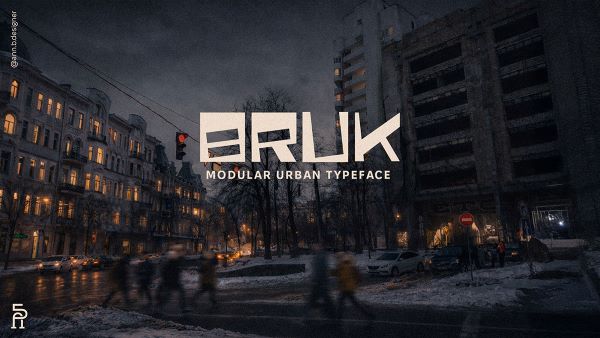
BRUK Font
BRUK by Anna Biliaieva is a modular urban font that approaches letterform design as architecture. Each character is conceived as an architectural block — a module that functions within a strict system, yet admits the kind of subtle imperfections that give cities their texture and life. The result is a typeface with genuine conceptual depth Free for personal and commercial use.
BRUK is a rigorous modular urban typeface in our free font collection, designed by Anna Biliaieva — a type designer and graphic artist based in Kyiv, Ukraine, whose work draws on architectural systems and urban rhythm as a foundation for expressive typographic form. Browse our full library of free fonts and discover more distinctive typefaces crafted by independent designers around the world.